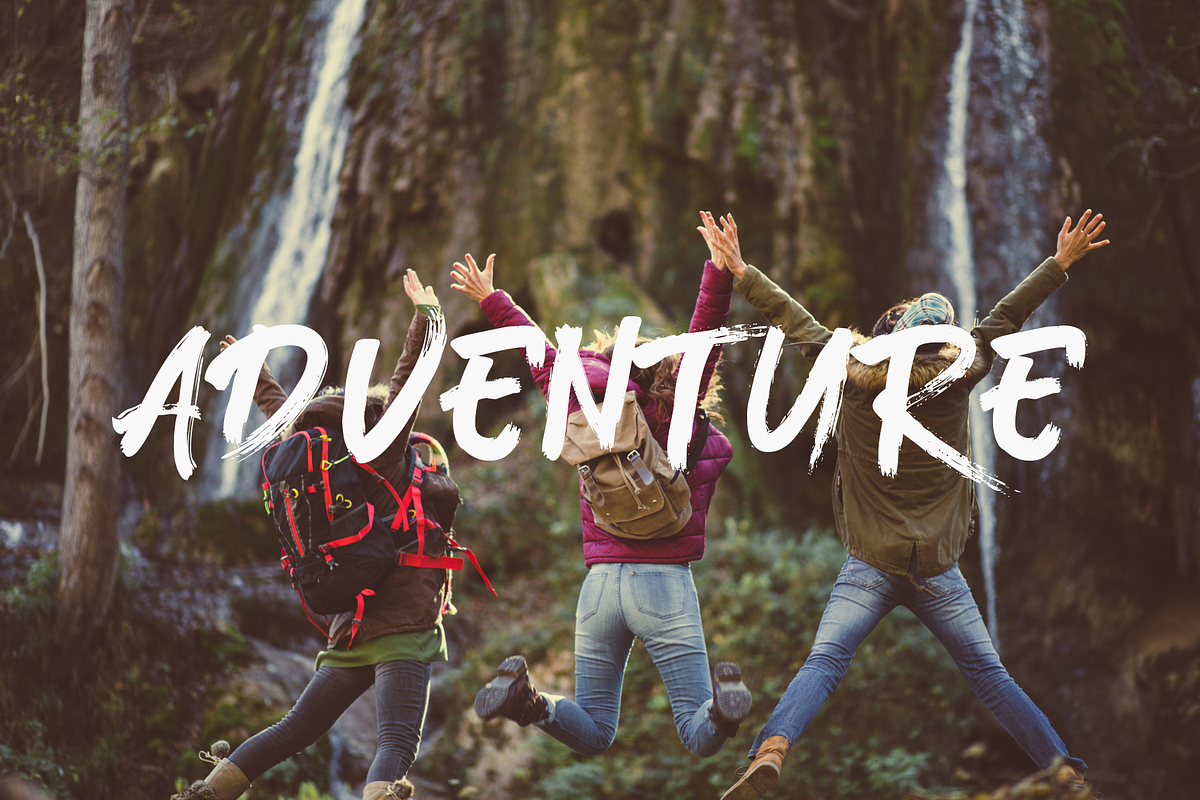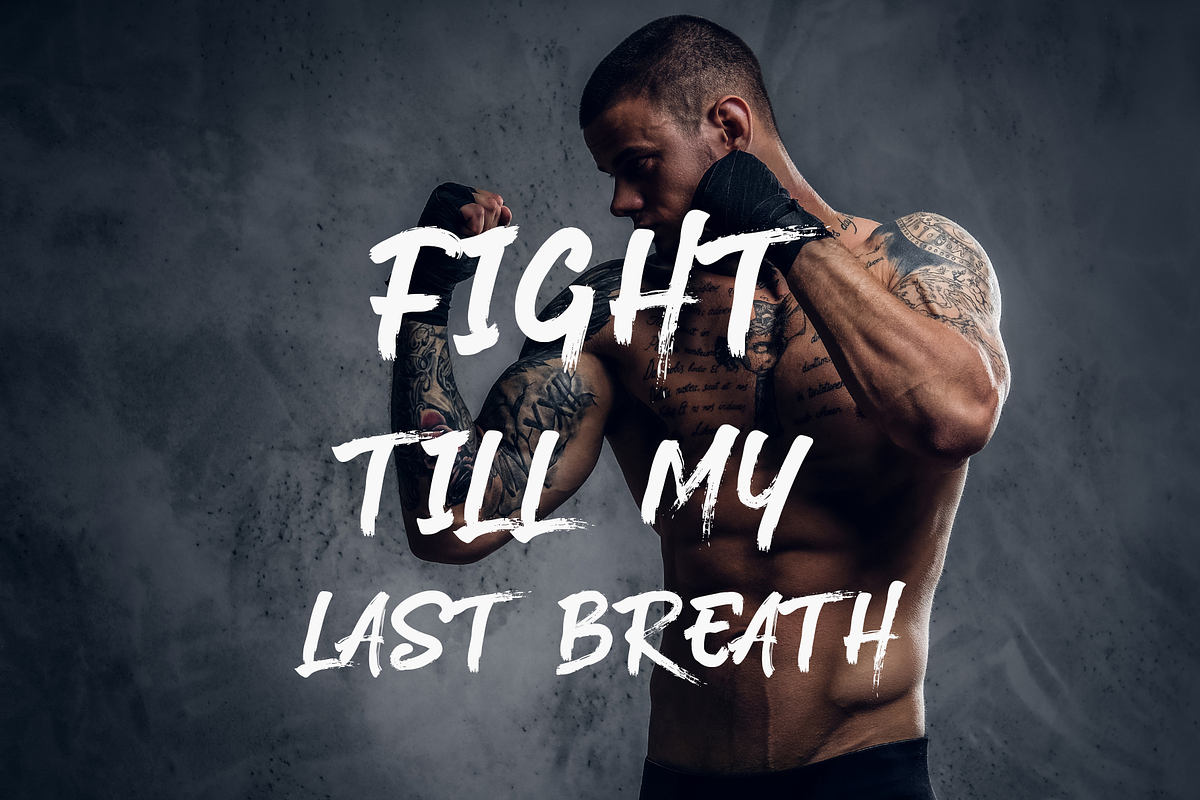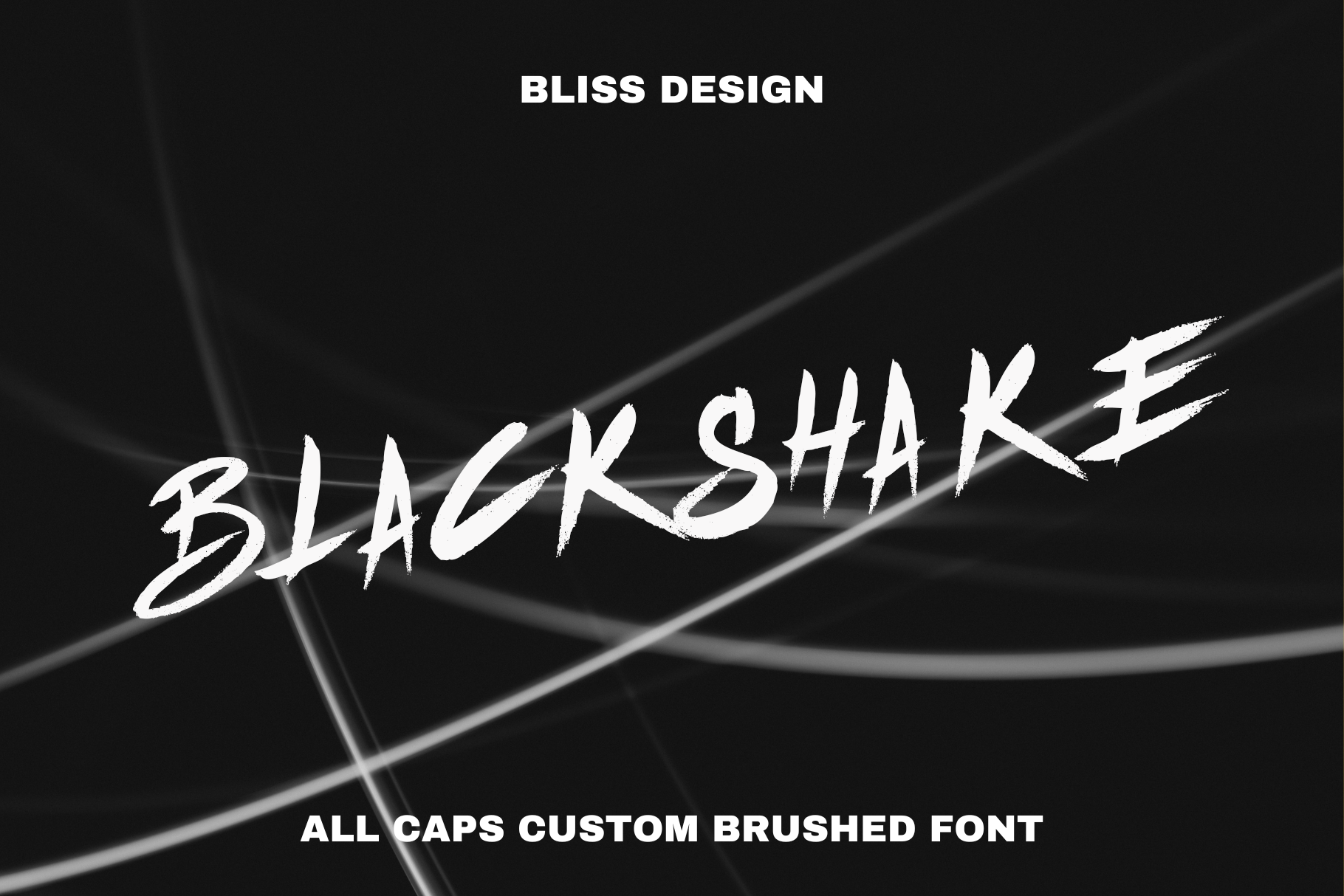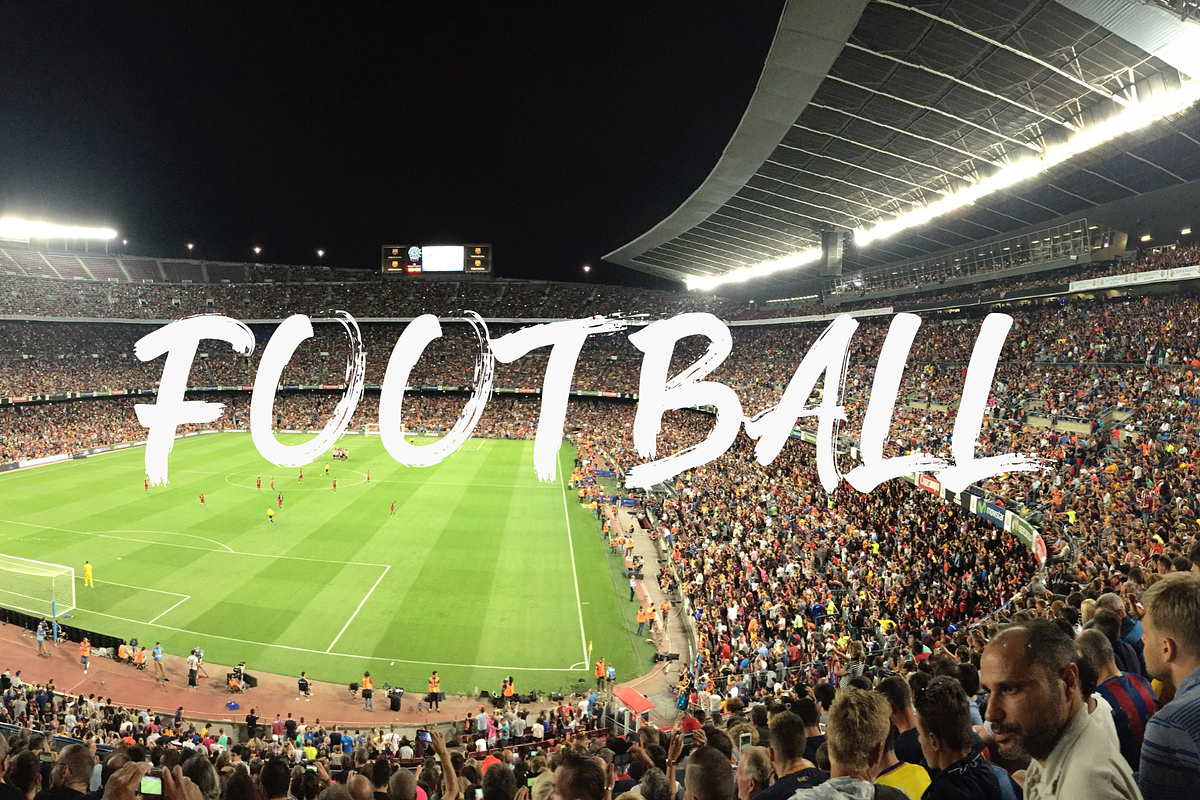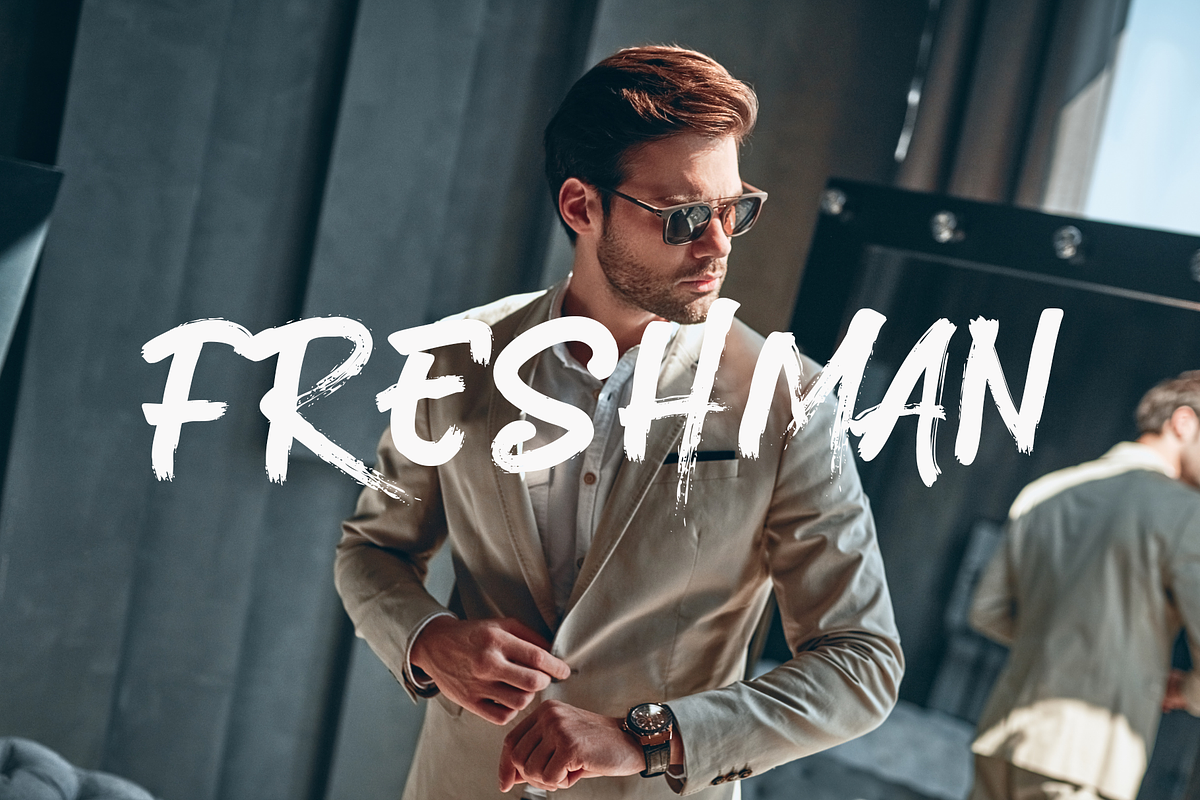
Blackshake custom brush font
BlackShake is a dry brushed / marker font.
It suitable for logo, branding, t-shirt, poster, packaging, book cover, hipster design, cards, and any brush lettering needs and more.